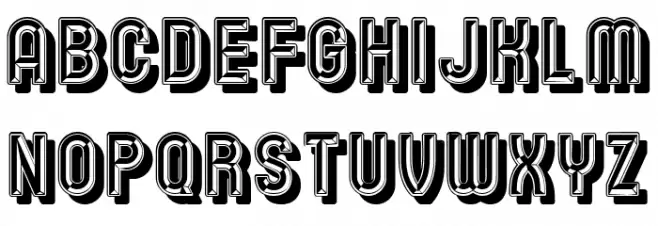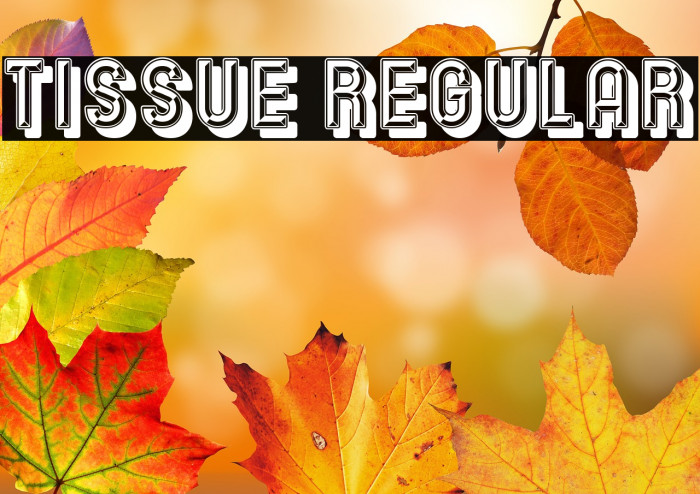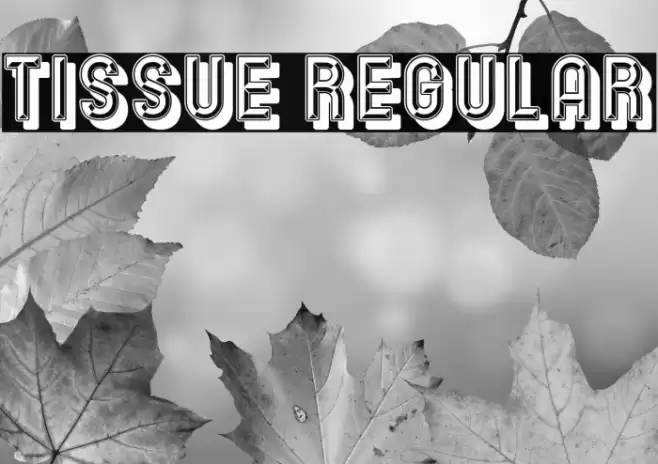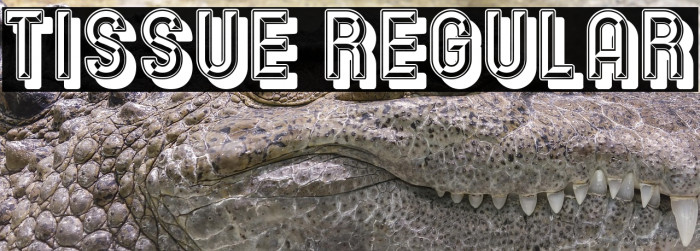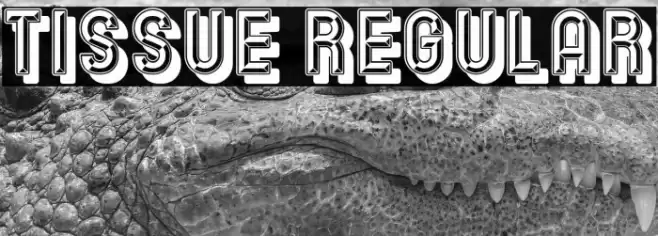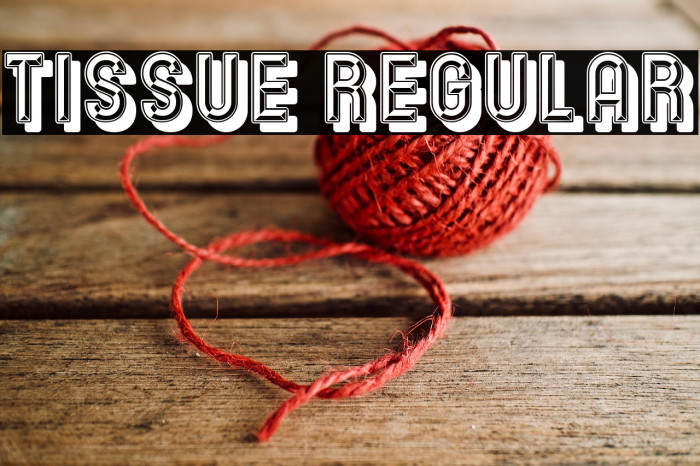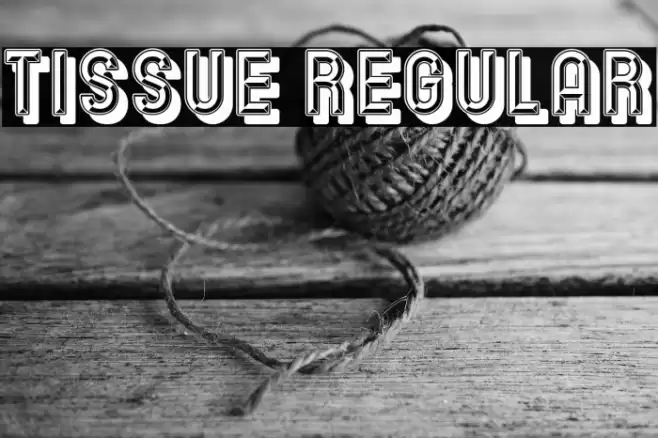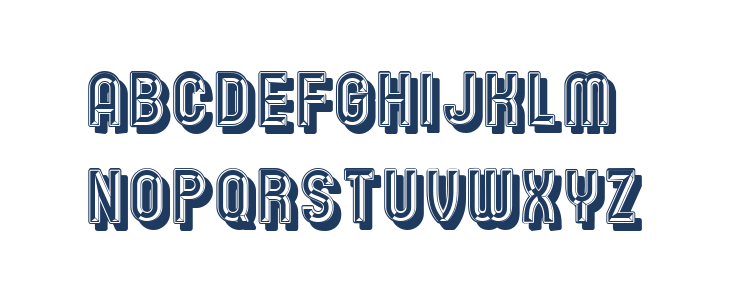
Tissue Regular Font
Tissue Regular Description
This font features a bold, decorative style with a three-dimensional effect created by its layered outline and shadow. The characters are uppercase, with a strong presence and a playful yet sophisticated design. The font's structure is reminiscent of vintage signage or classic circus posters, with thick strokes and a high level of detail that adds depth and visual interest. The shadow effect enhances its dimensionality, making it stand out in any design. The overall appearance is both eye-catching and versatile, suitable for a variety of creative applications.
| Proposed Projects | Ideal for posters, signage, branding, and any project requiring a bold, eye-catching typeface. |